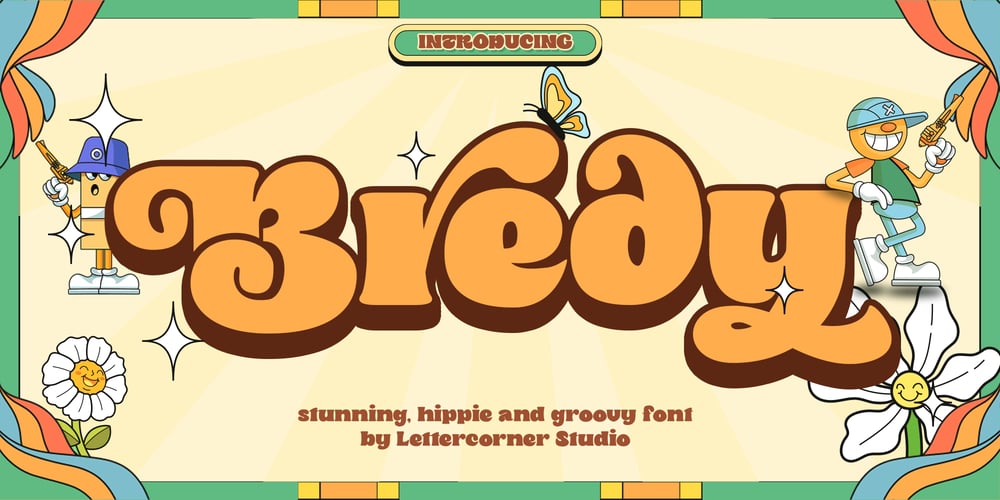
Bredy Font Family was designed by Muhammad Afif Ersya and published by Mevstory Studio. Bredy contains 2 styles and family package options. Introducing Bredy, a hippie-themed font that combines strong and gentle shapes with rounded edges, giving it a unique and playful style. This bold and wide font is perfect for creating eye-catching designs that stand out, whether you’re designing posters, album covers, logos, or social media graphics. With extensive multilingual character support, including Latin Pro, Bredy is versatile and adaptable to all your design needs.If you’re looking to create designs that are both hippie and modern, Bredy is the font for you. Its distinct and playful style will elevate your designs to the next level, making them pop and catch the eye. Don’t wait to try out Bredy – purchase now and start creating stunning, hippie and groovy designs that will leave a lasting impression.